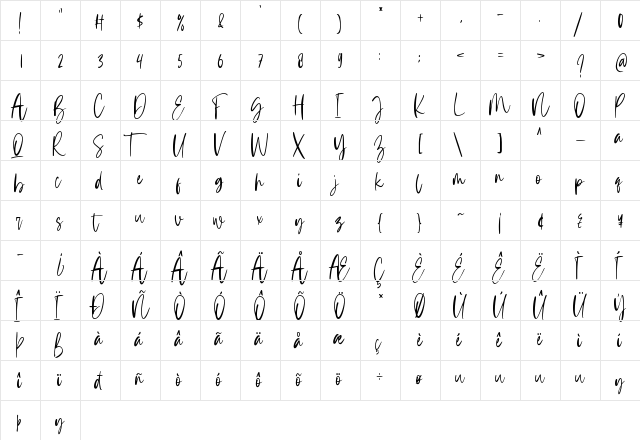
Krispy Panda Regular
| Designer | Muhamad Yusron Billah |
Design Context for Krispy Panda Typeface
Krispy Panda is a composed and adaptable typeface that performs quietly and consistently across a wide range of design contexts.